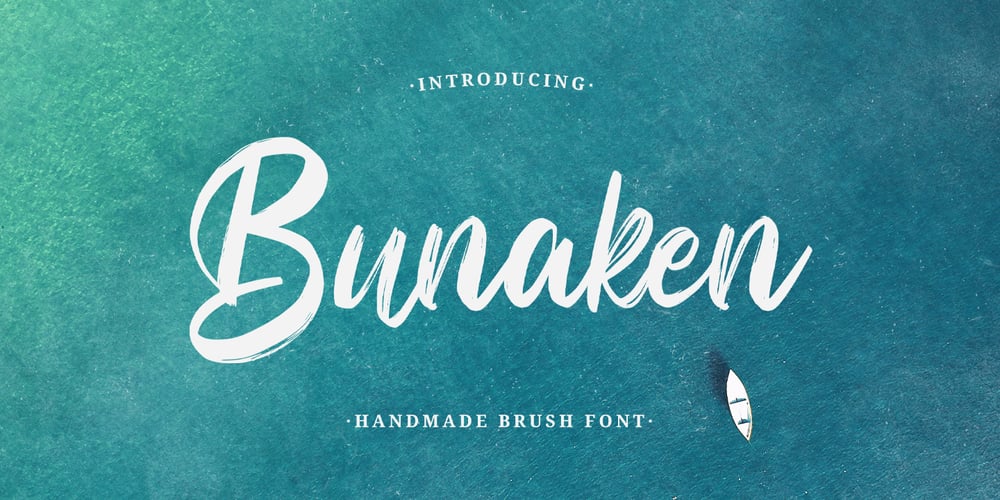
Bunaken Font Family was designed by Hilmius Akbar and published by Typefactory. Bunaken contains 1 styles and family package options. Bunaken looks bold, yet sophisticated and features chunky and extended characters that will look particularly adept when used in logos, branding, packaging design, and much more.This masterfully designed brush script is a true must-have.